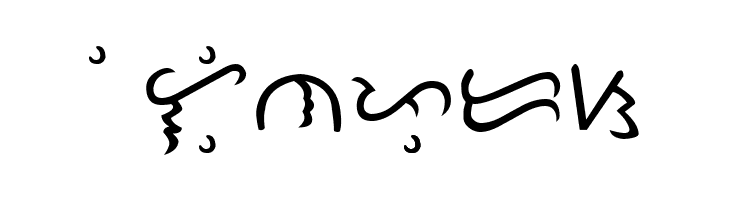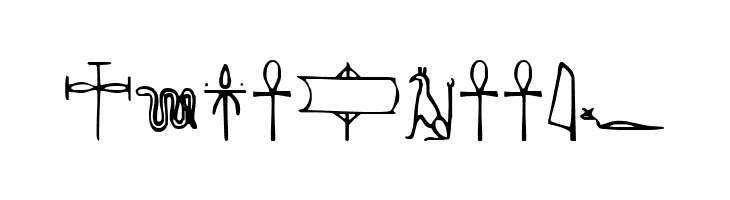
A tactile Braille system with raised dot patterns for accessibility.
A modern font combining Braille patterns with Latin characters for a tactile and visual experience.
A Braille-inspired geometric dot grid font.
A pixelated Braille-inspired font with a minimalist and digital aesthetic.
A pictographic font of traffic and road signs.
A decorative set of music-themed icons representing various instruments and elements.
A playful, bold font with rounded characters and a shadow effect, perfect for fun projects.
A playful, rounded font with a youthful, hand-drawn appearance.
A set of chess piece symbols with bold outlines for clarity.
A collection of stylized chess piece symbols for digital and print use.
A modern, geometric interpretation of the traditional Baybayin script.
A modern, italic sans-serif font with clean lines and balanced proportions.
A clean, modern sans-serif font with excellent legibility.
A collection of decorative hieroglyphic symbols inspired by ancient Egyptian writing.
A pictorial font featuring running horse illustrations as glyphs.
A playful, bold font with child silhouettes integrated into each letter.
A whimsical and playful set of hand-drawn dingbats featuring diverse symbols.
( A revival of a 20th century interwar typeface. In the early- to mid-20th century, the George Gorton Machine Company made engraving machines (among other machines). )
A modern, rounded sans-serif font with excellent readability and versatility.
Pictorial, hieroglyph-inspired decorative font.
Bold, playful orchestra and music-themed icon set in silhouette style.